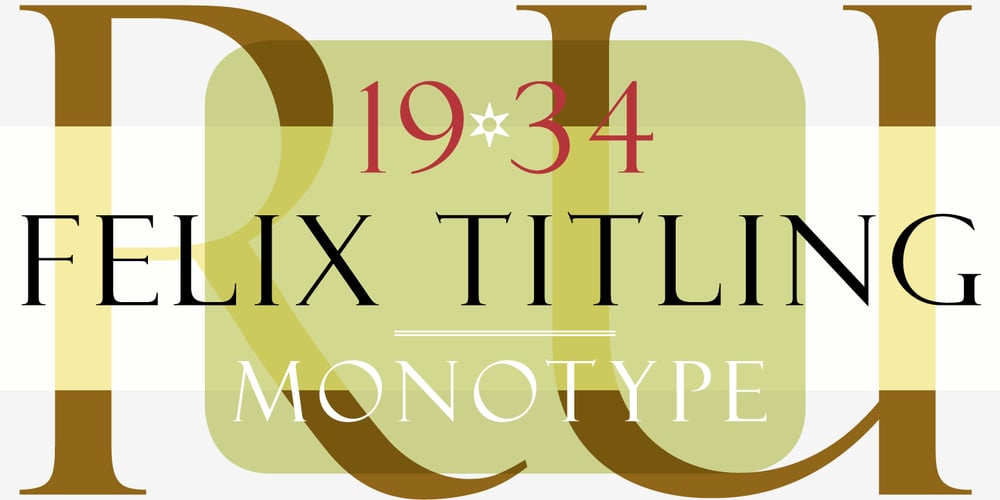
Felix Titling
Felix Titling font
Felix Titling Font Family was designed by Monotype Design Studio, Felice Feliciano and published by Monotype. Felix Titling contains 1 styles and family package options. An all-caps titling font designed by the Monotype Drawing Office in 1934, based on an alphabet designed by Veronese calligrapher Felice Feliciano in 1463.